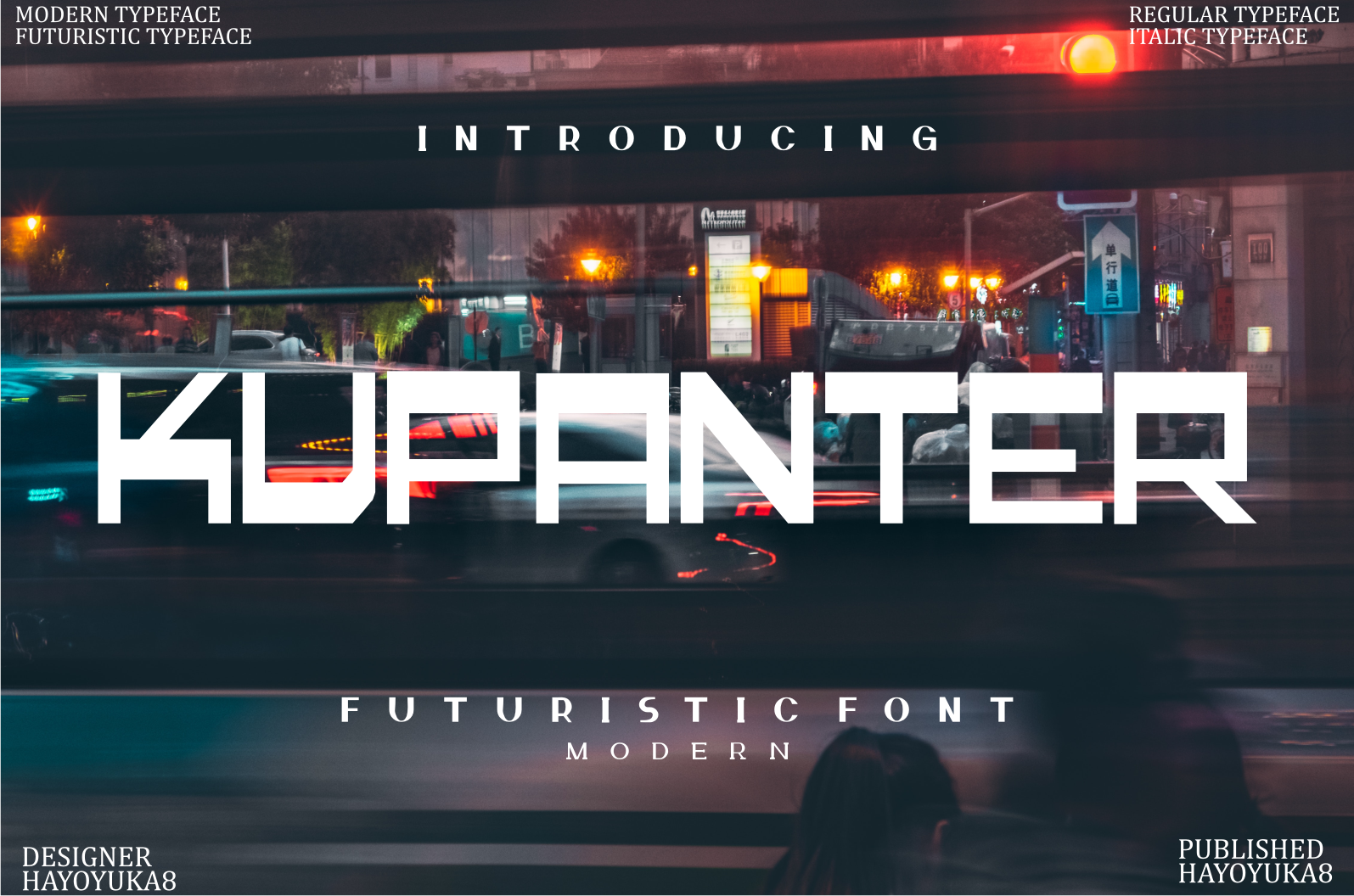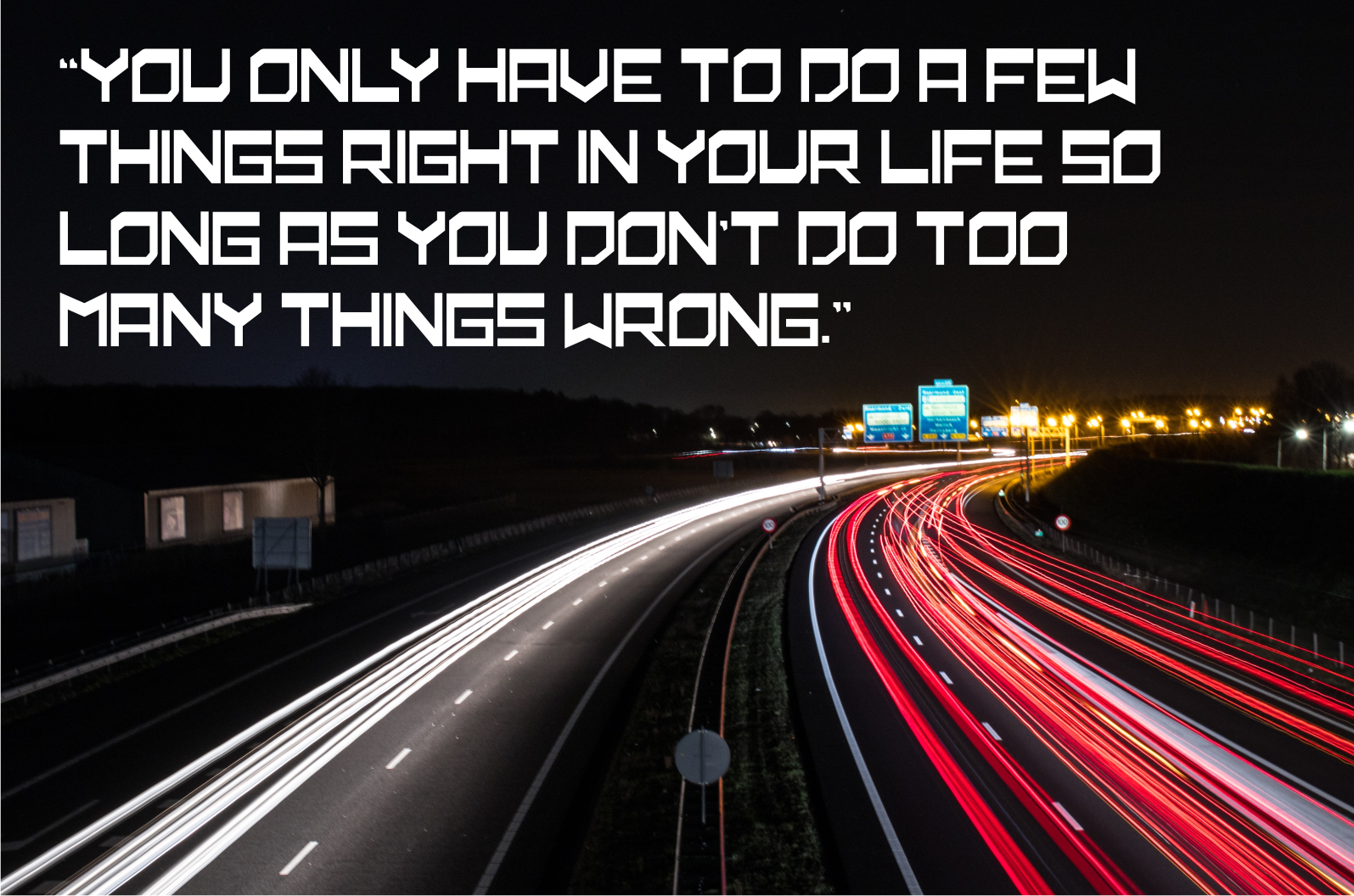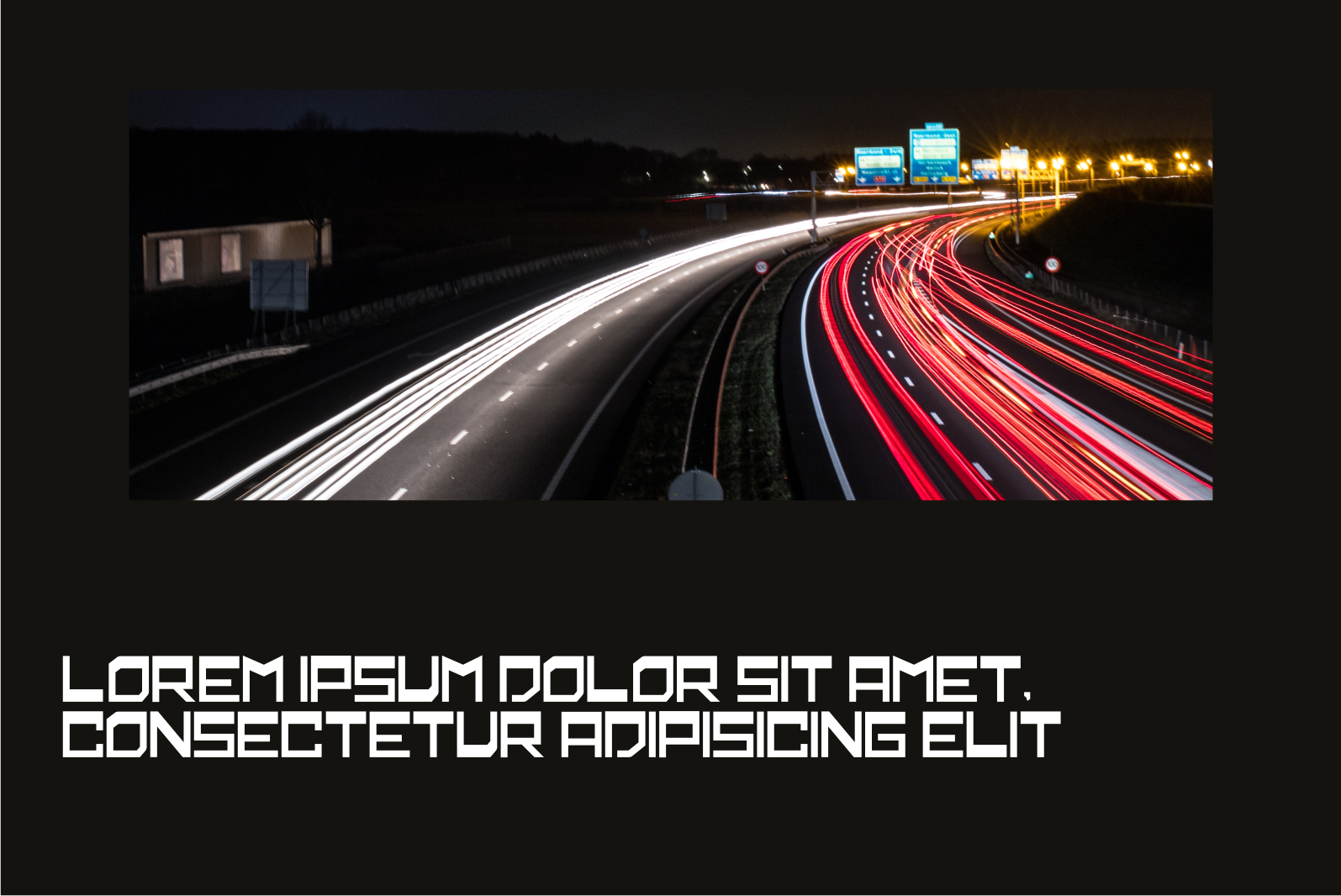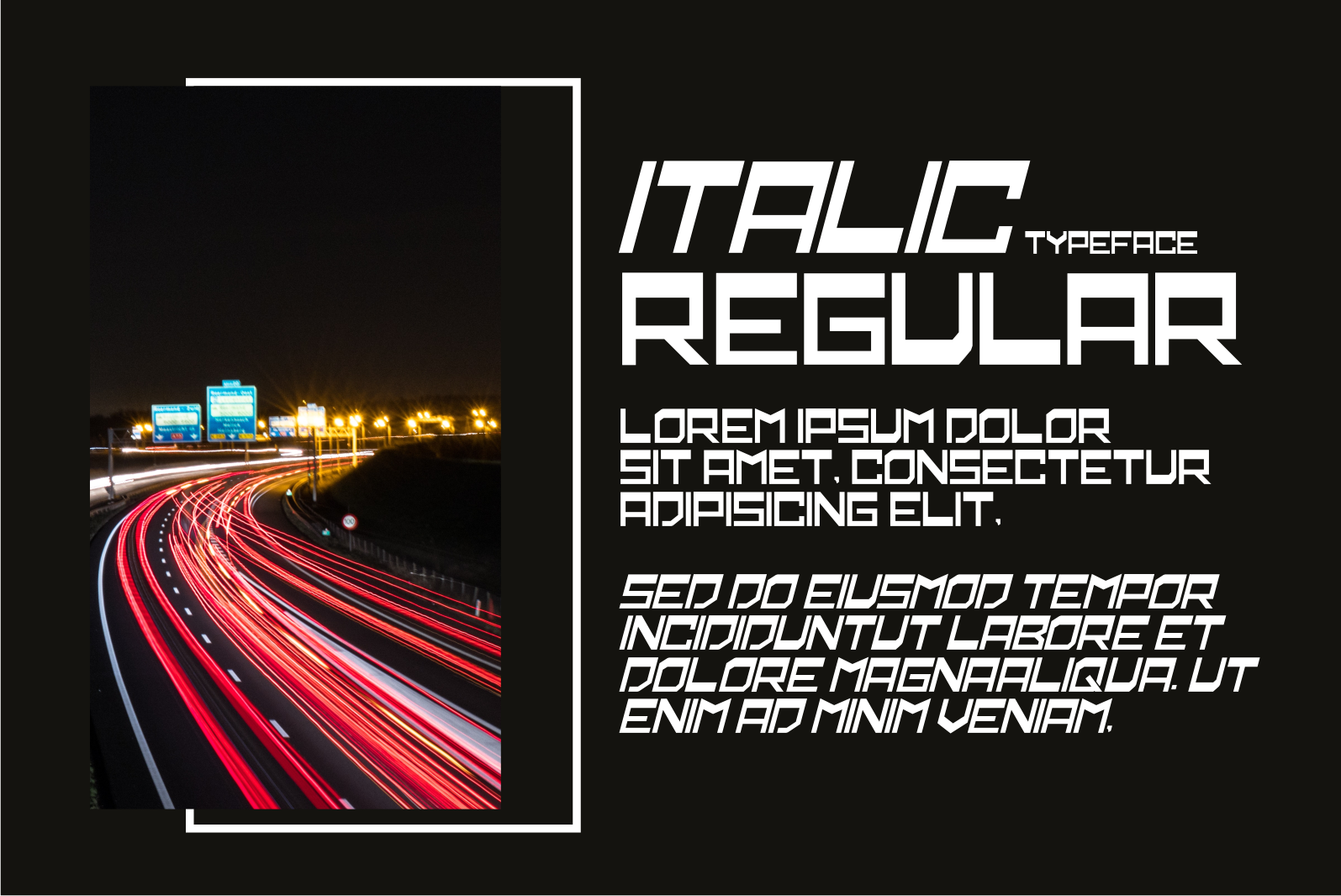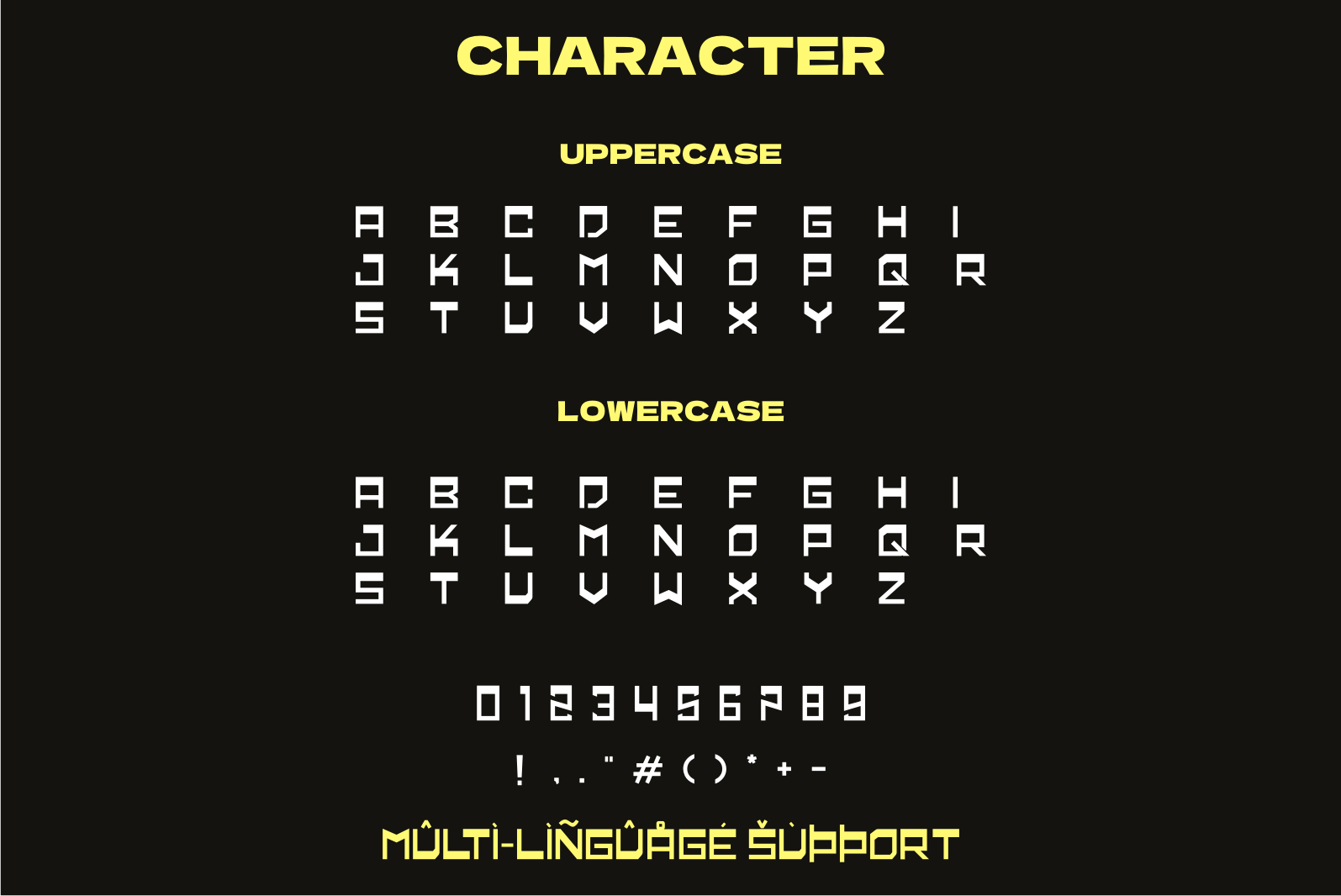
Kupanter Font
Kupanter Display Font
It’s an assertive and robotic styled display font. This font is ideal for writing web designs, business cards, or pretty much anything else that requires a futuristic touch.